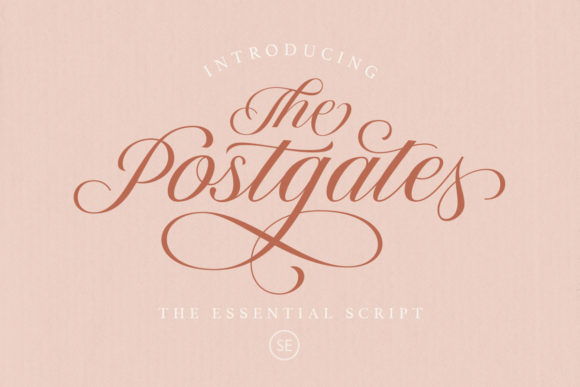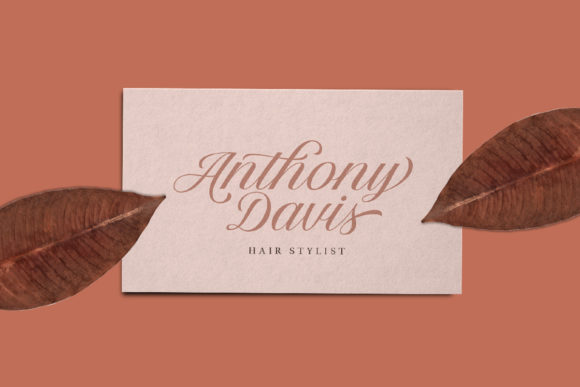
Introducing The Postgates: The Classic and Incredibly Elegant Script Font
Step into a world of timeless elegance with The Postgates, a font that exudes classic beauty in its script style. Ideal for writing letters or romantic notes, as well as creating stunning wedding invitations or heartfelt thank you cards, The Postgates adds a touch of sophistication to all your projects. Embrace the charm of The Postgates as you access all of its glyphs and swashes with ease, thanks to its PUA encoding.
The Postgates’ classic and elegant appeal brings a sense of refinement and grace to your designs. Its script letterforms flow with a seamless beauty, making your text exude a touch of timeless charm.
As an incredibly elegant font, The Postgates becomes the perfect choice for writing heartfelt letters or romantic notes. Its sophistication adds a touch of poetry to your words, creating a sense of intimacy and warmth.
The font’s suitability for wedding invitations and thank you cards makes it a versatile option for any special occasion. The Postgates enhances your projects with a touch of grandeur and elegance.
Embrace the beauty of The Postgates as you embark on your creative journey. Let it be the font that elevates your work, creating a sense of classic elegance and beauty in every project.
As you explore the possibilities of The Postgates, you’ll find it to be a font that enhances your designs with ease. Its classic and incredibly elegant script beauty transforms your work, ensuring that your creations leave a lasting impression.
So, let The Postgates be the font that adds romance to your letters and sophistication to your invitations. Embrace its timeless appeal and watch as your words come to life with a touch of elegance and grace. With The Postgates as your go-to font, your designs will resonate with beauty and intimacy, captivating your audience and leaving a lasting impression. Embrace the elegance of The Postgates and create designs that are truly exquisite and unforgettable!